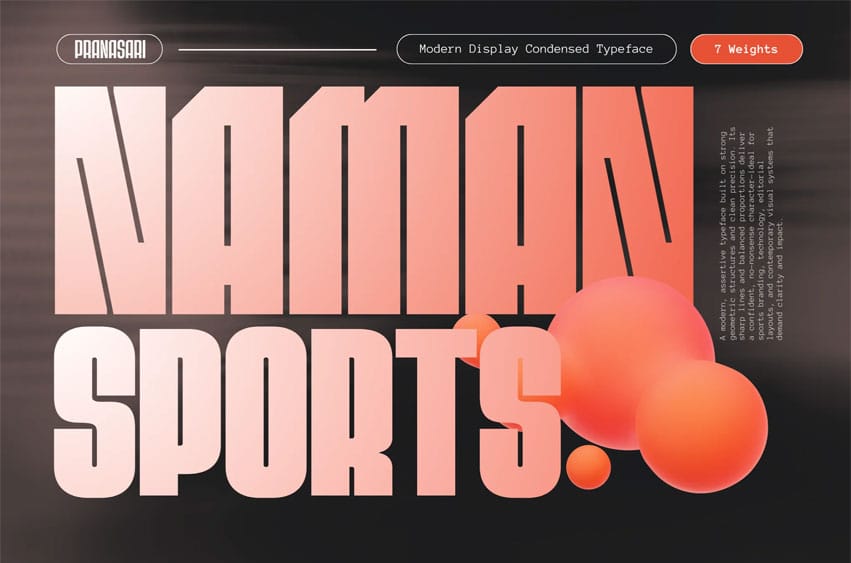
Naman Sports Font offers beautiful typographic harmony for a variety of design projects, including logos and branding, social media posts, advertisements, and product designs.